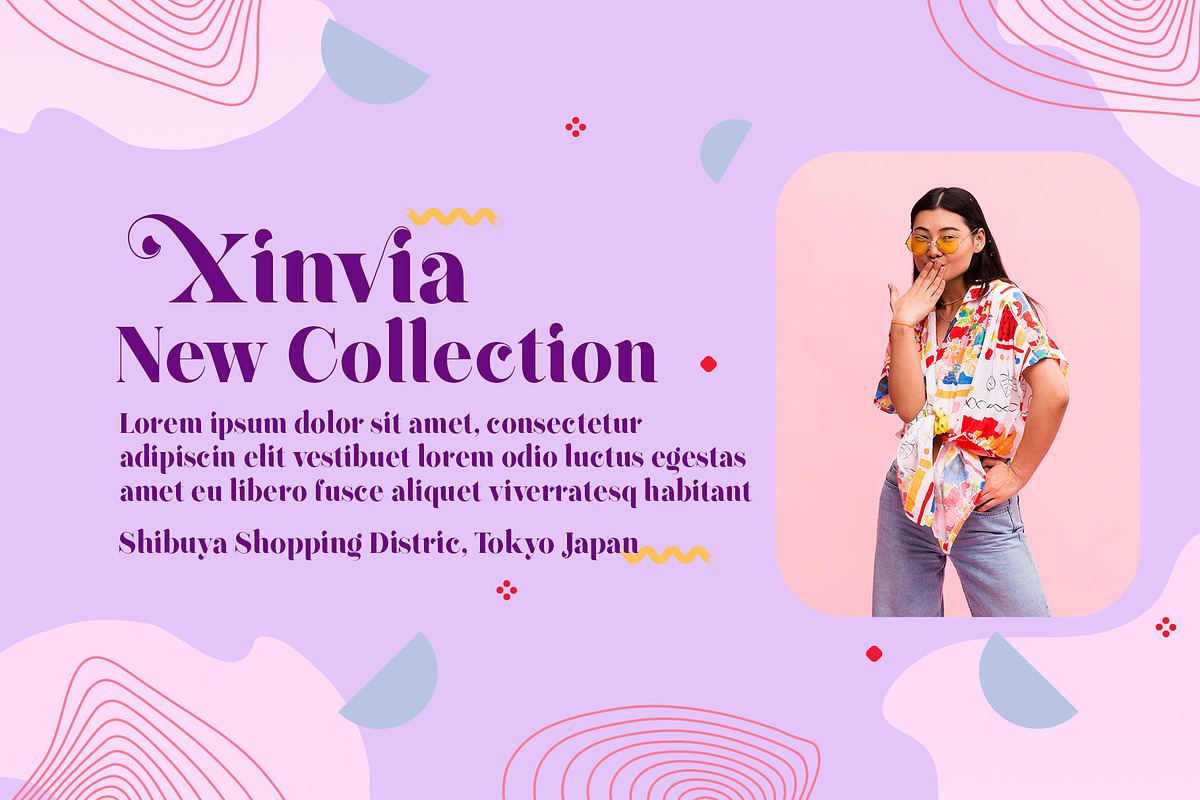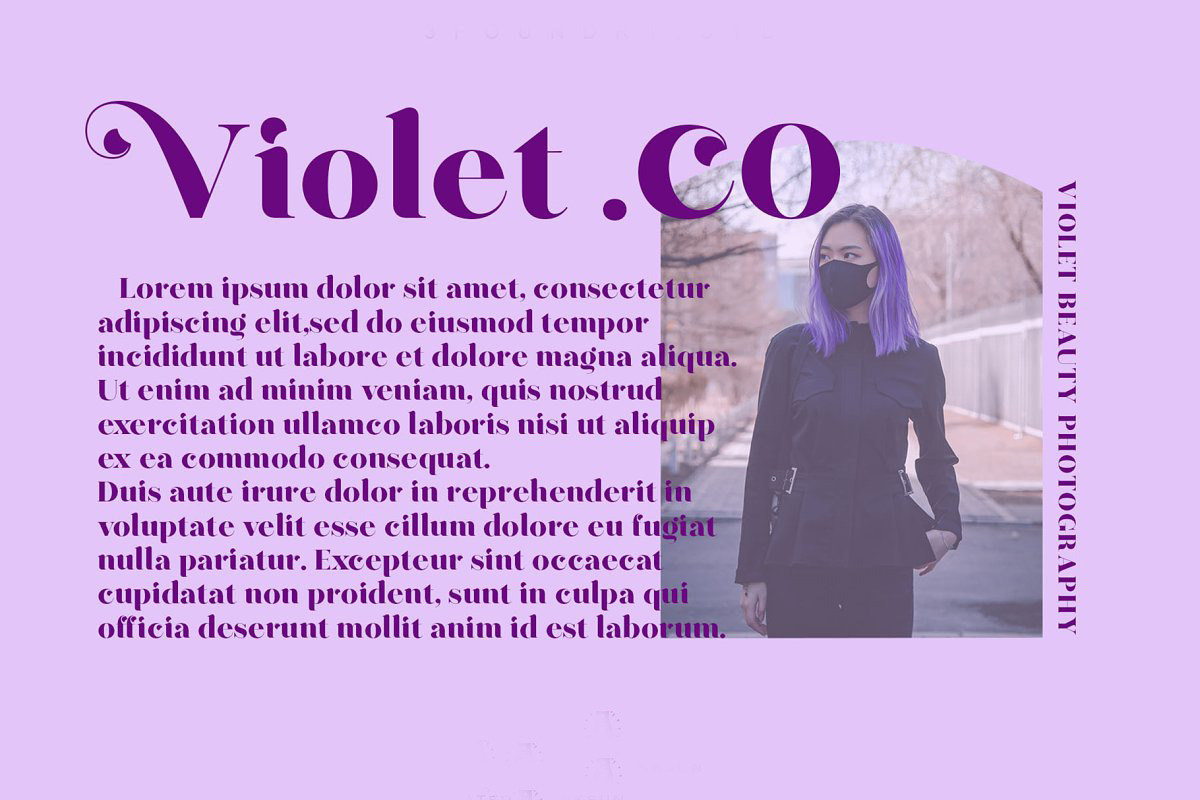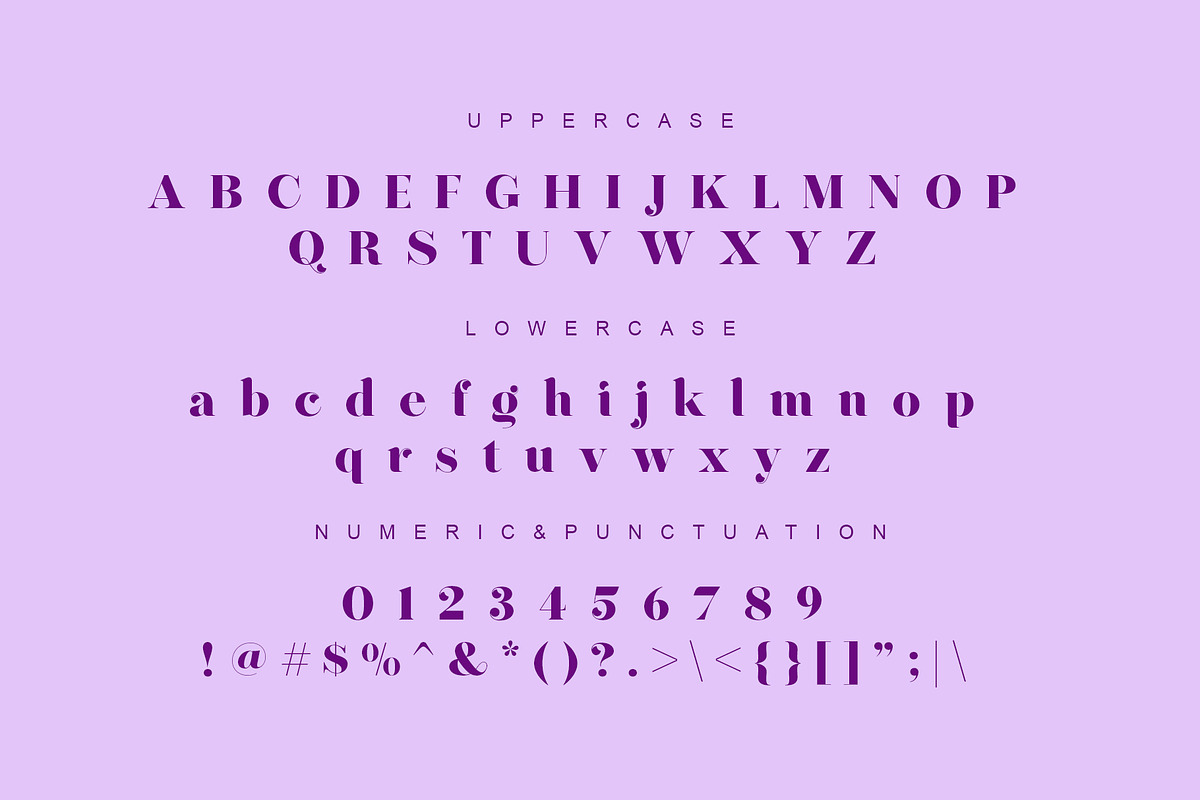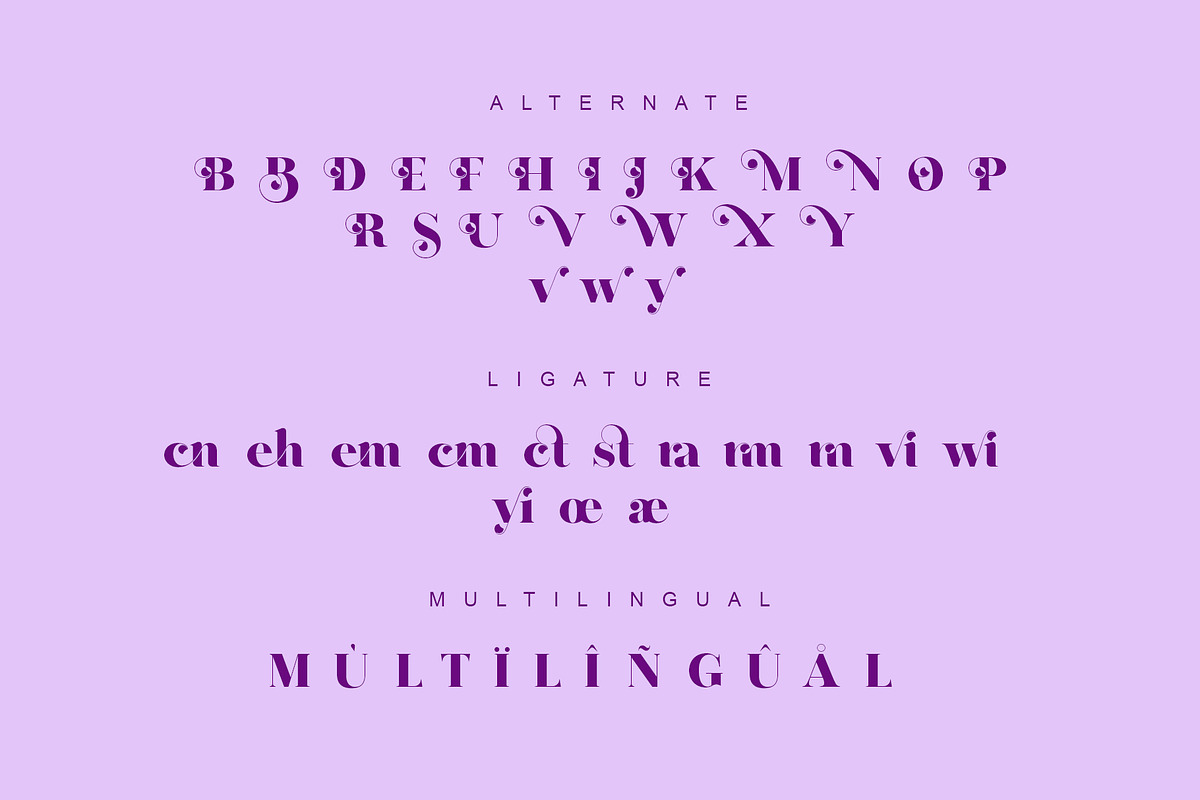
Barlenty
Hello Guys! on this occasion, we would like to present a new product called "Barlenty", an attractive font that gives a simple and stylish impression, here we will see a feminine feel but it will also look good when you use it in a design that has a luxury style, at a price. affordable you can get it immediately.
FEATURE
- Numeral
- Functional
- Stylistic Glyph